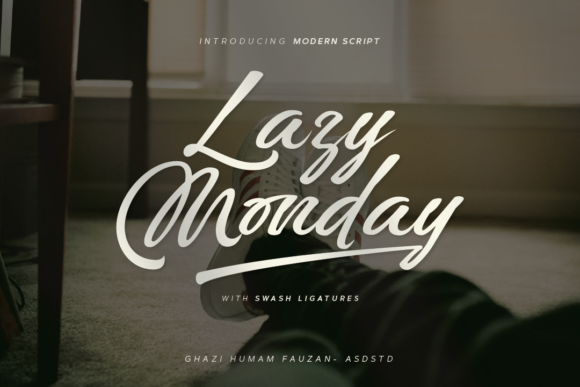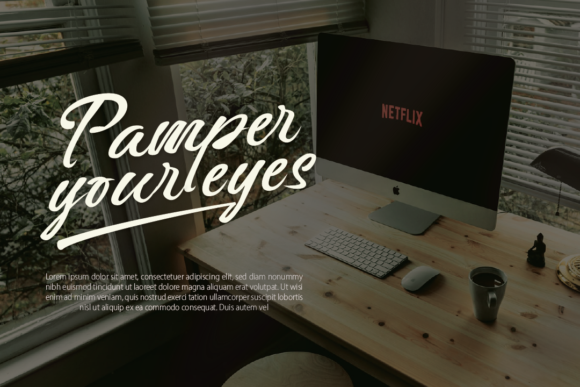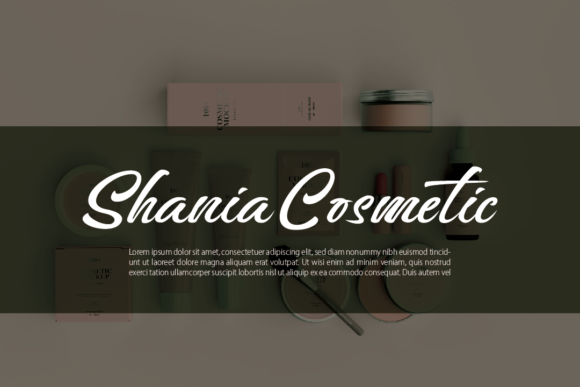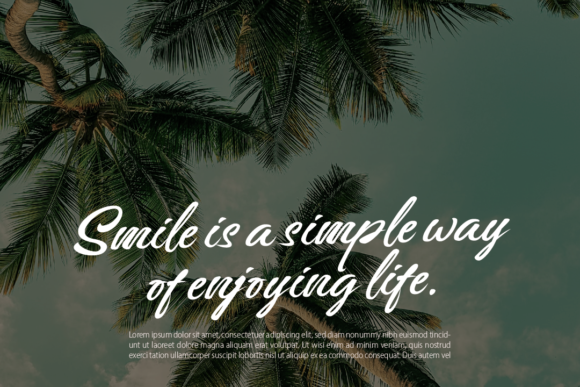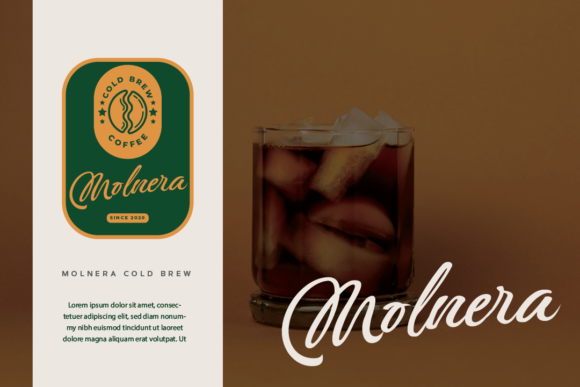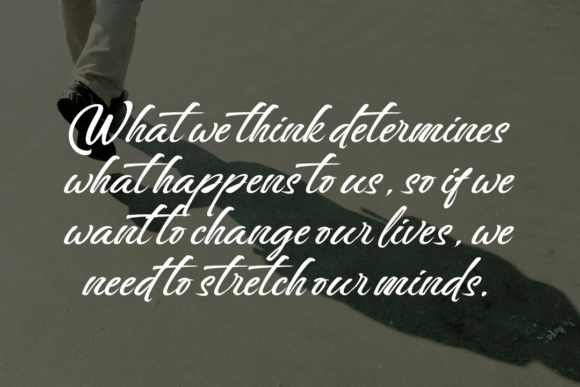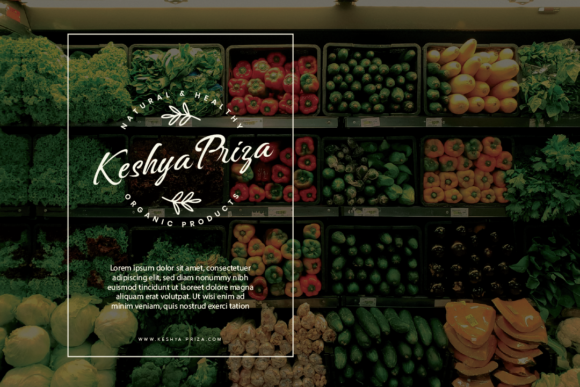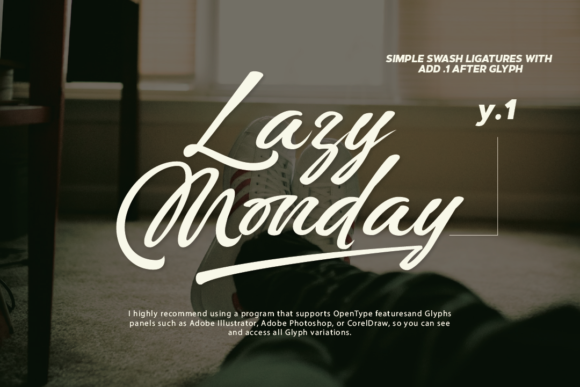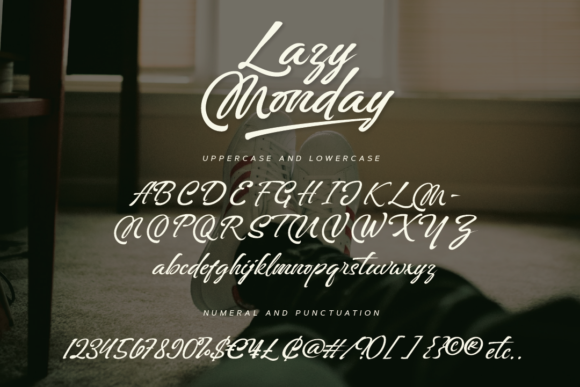
Lazy Monday Font
About Lazy Monday Font
Lazy Monday is a stylish and delicate handwritten font. Featuring characters that dance along the baseline, this font will add a luxury spark to any design project that you wish to create!